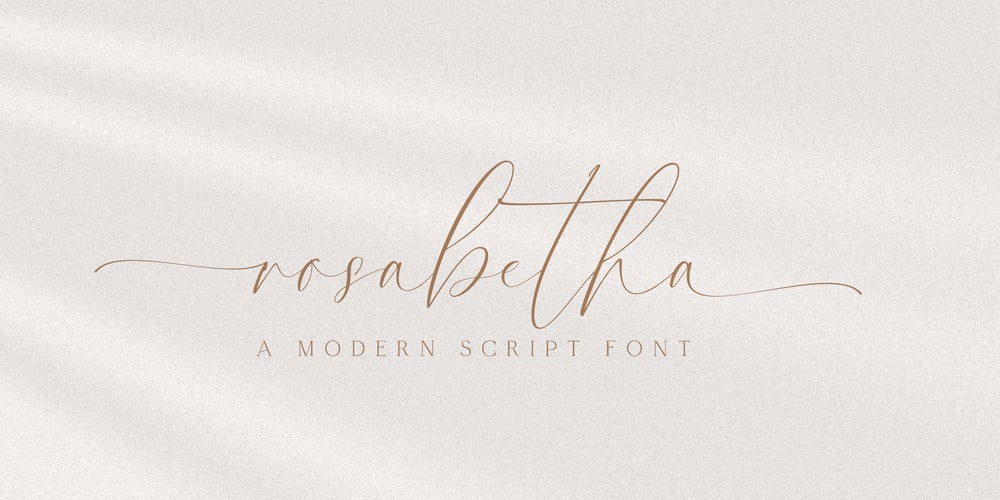
Rosabetha
Rosabetha font
Rosabetha Font Family was designed by Zak M and published by Prestige Artsy Studio. Rosabetha contains 1 styles and family package options. Introducing Rosabetha Script, the new modern script font that blends clean, soft lines with delicate elegance. With its gentle curves and refined strokes, Rosabetha Script offers a touch of sophistication while remaining approachable and versatile.This font includes multilingual support, making it perfect for a global audience. Ideal for branding, headlines, and projects that demand a refined yet contemporary look, Rosabetha Script brings a fresh, graceful touch to your designs. Let your words shine with the understated charm of Rosabetha Script.